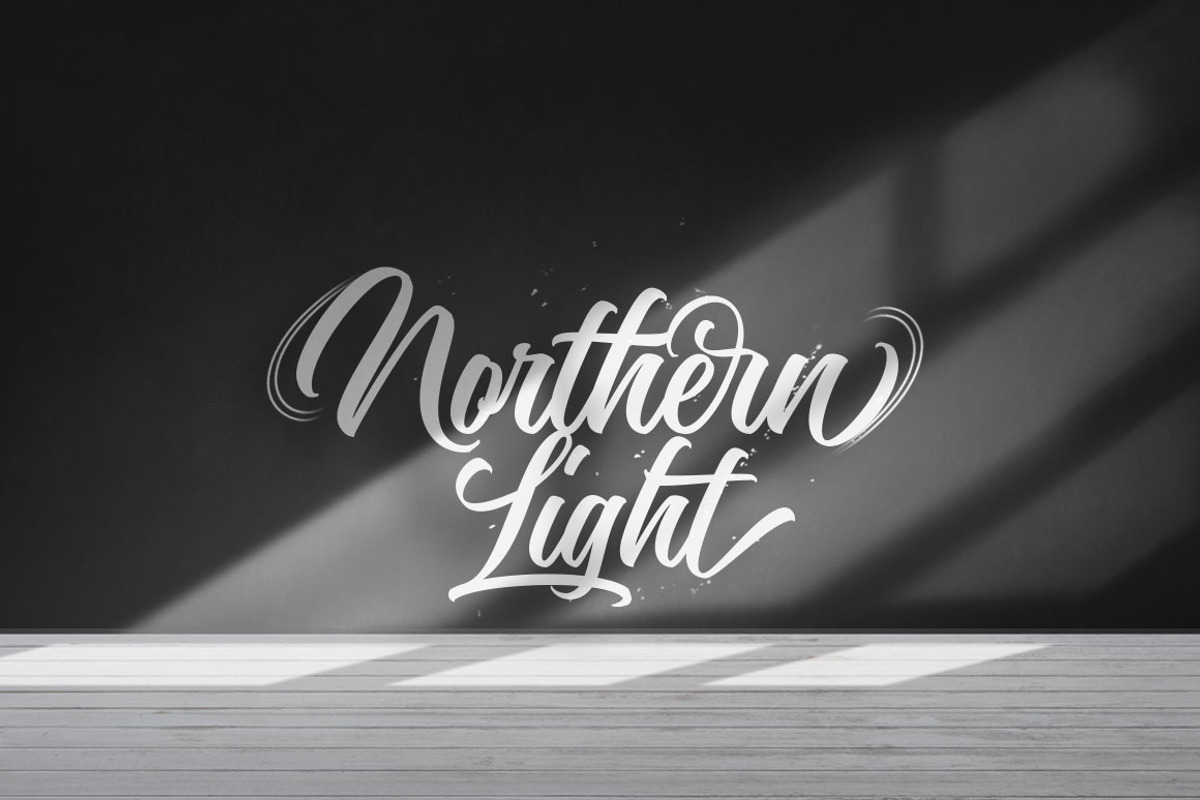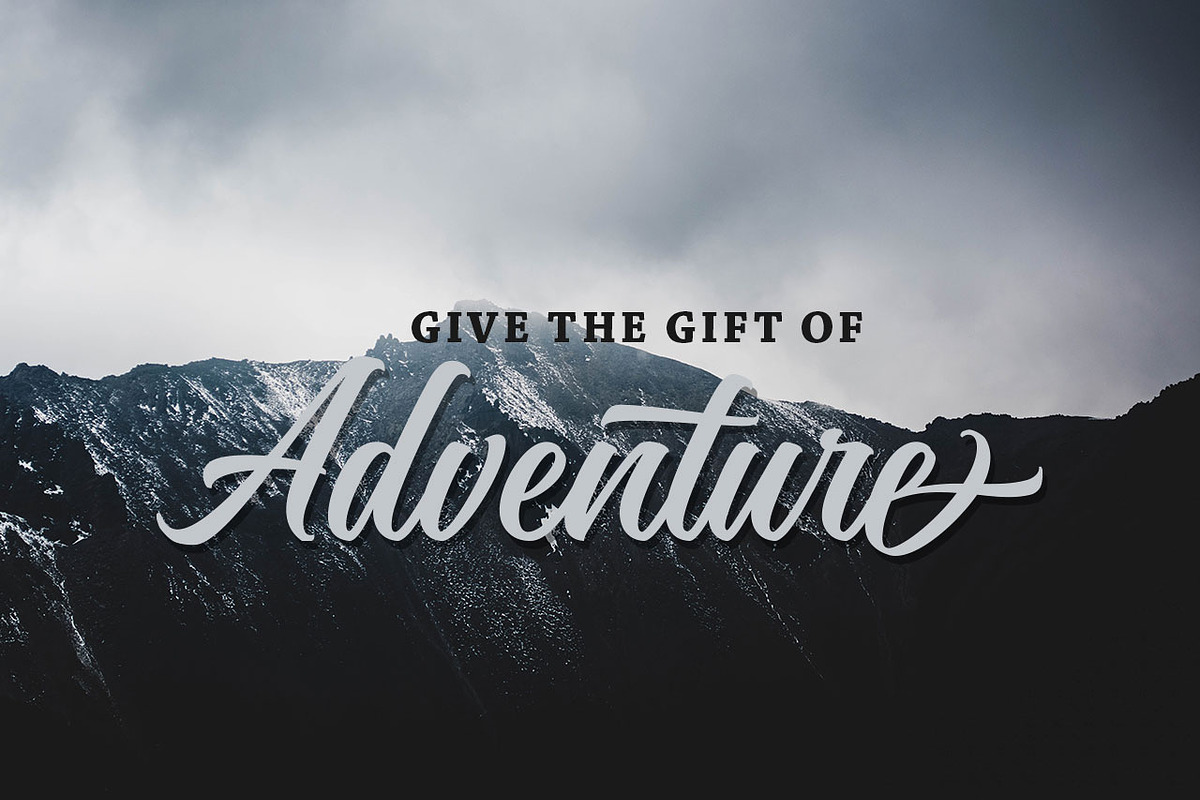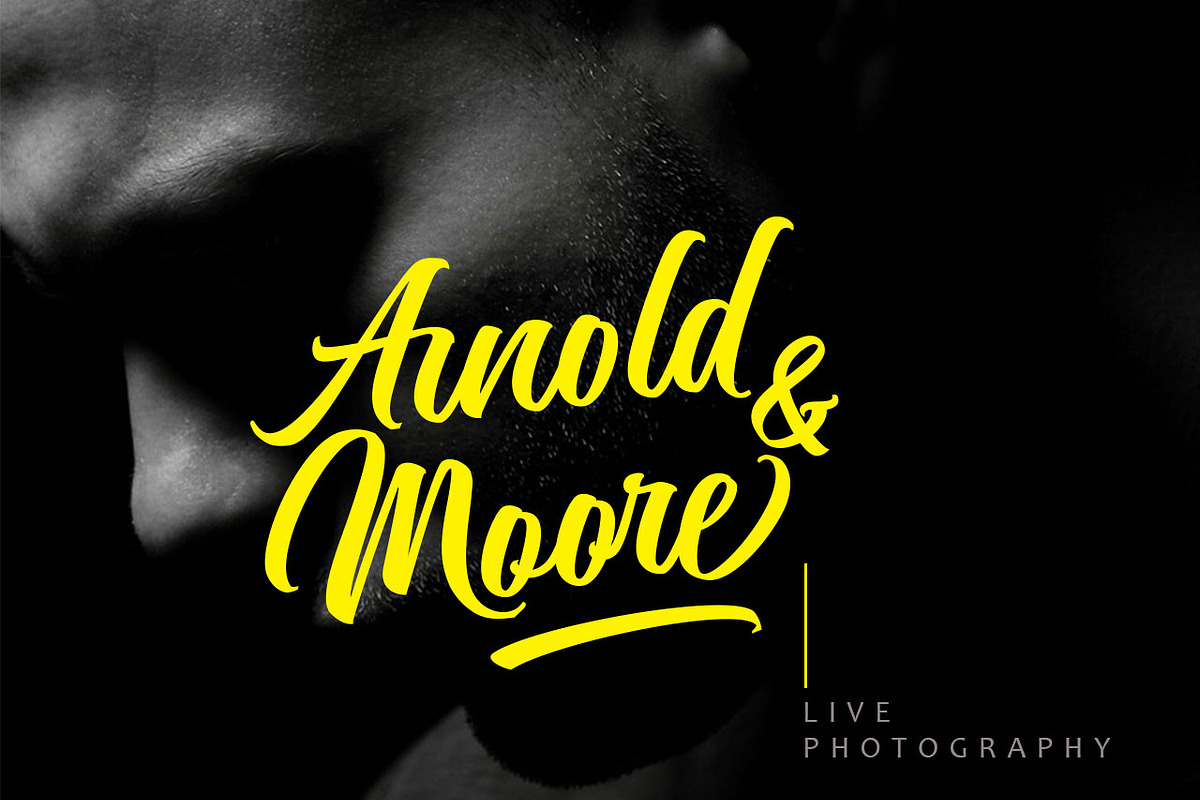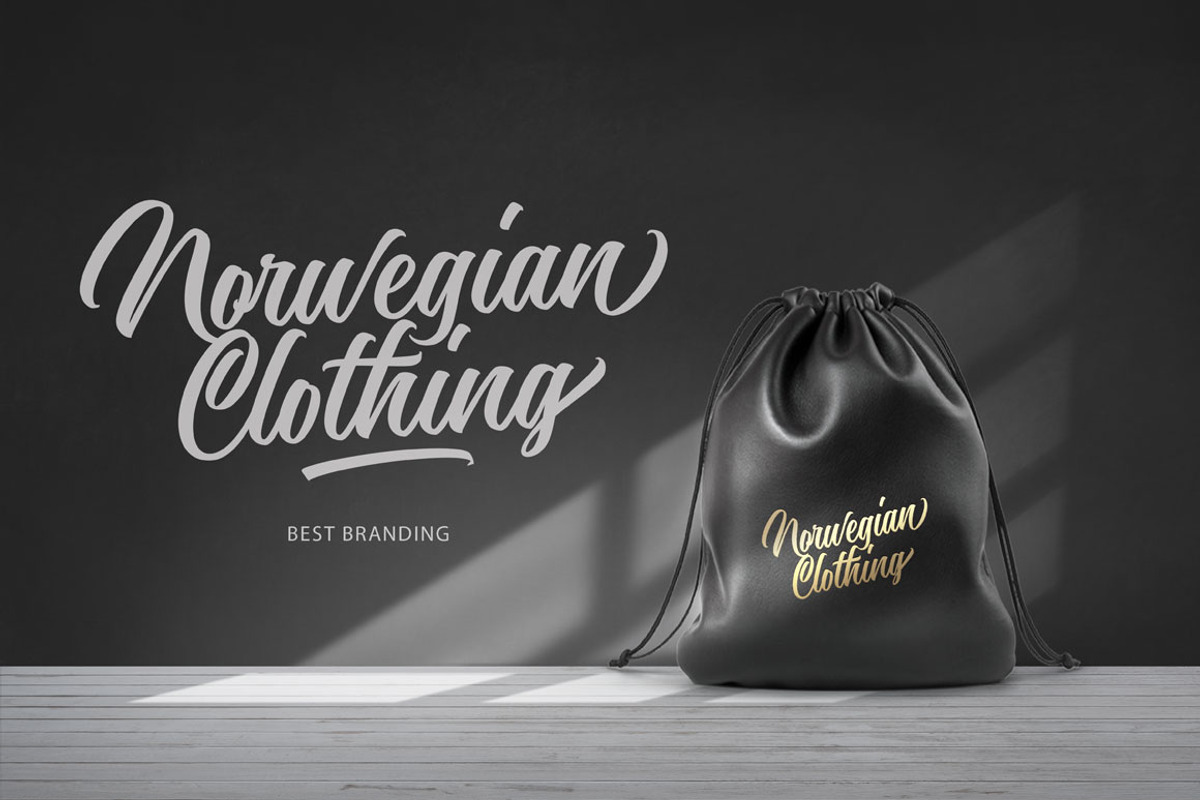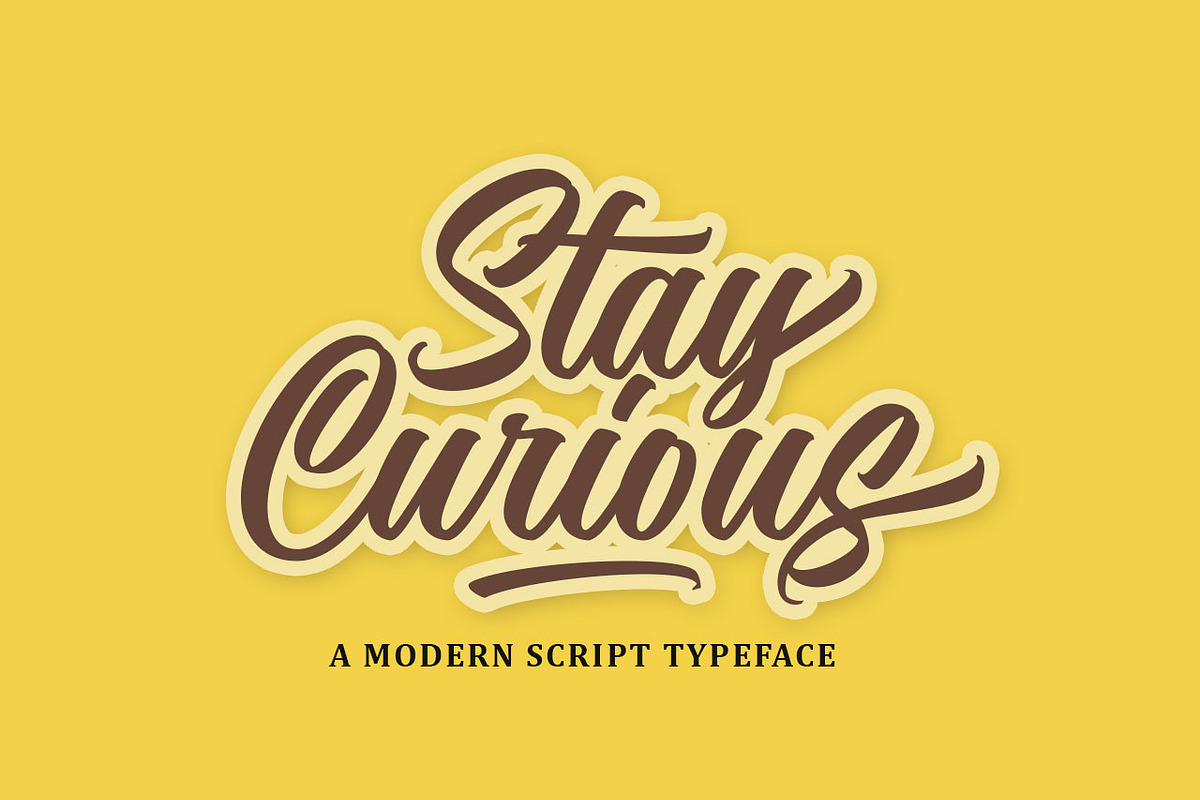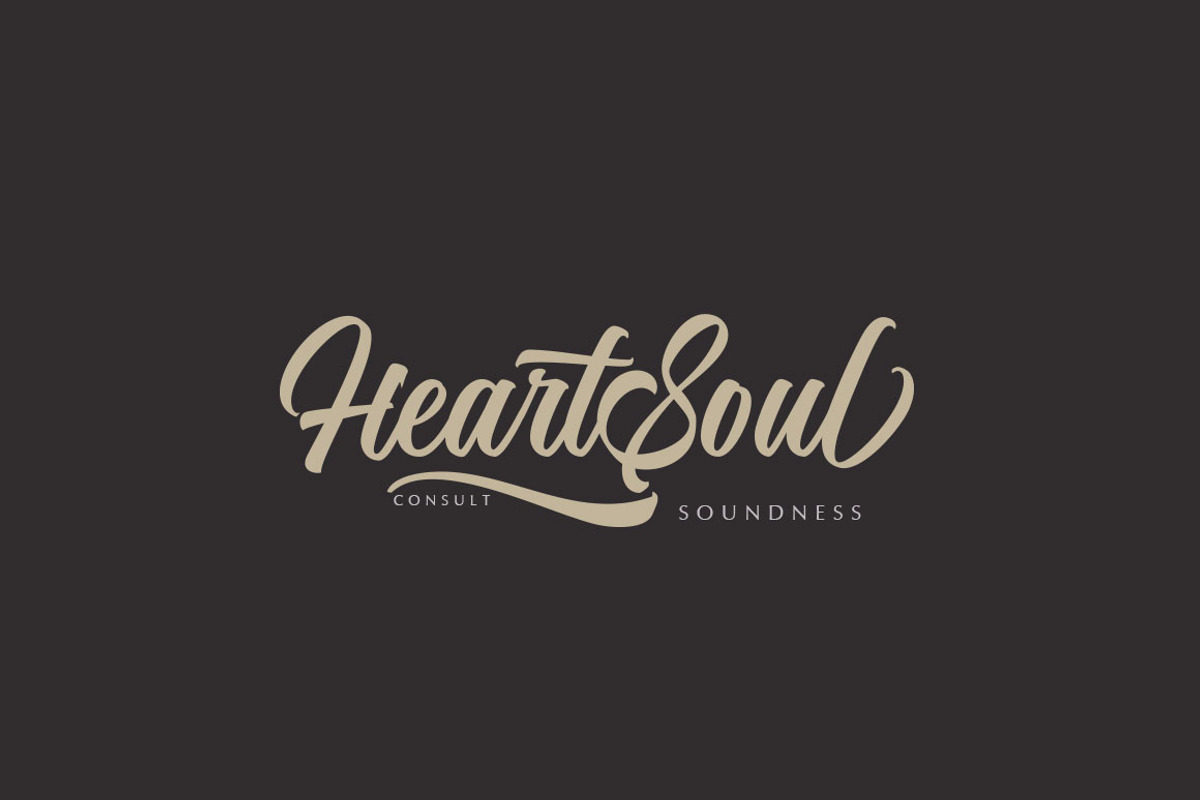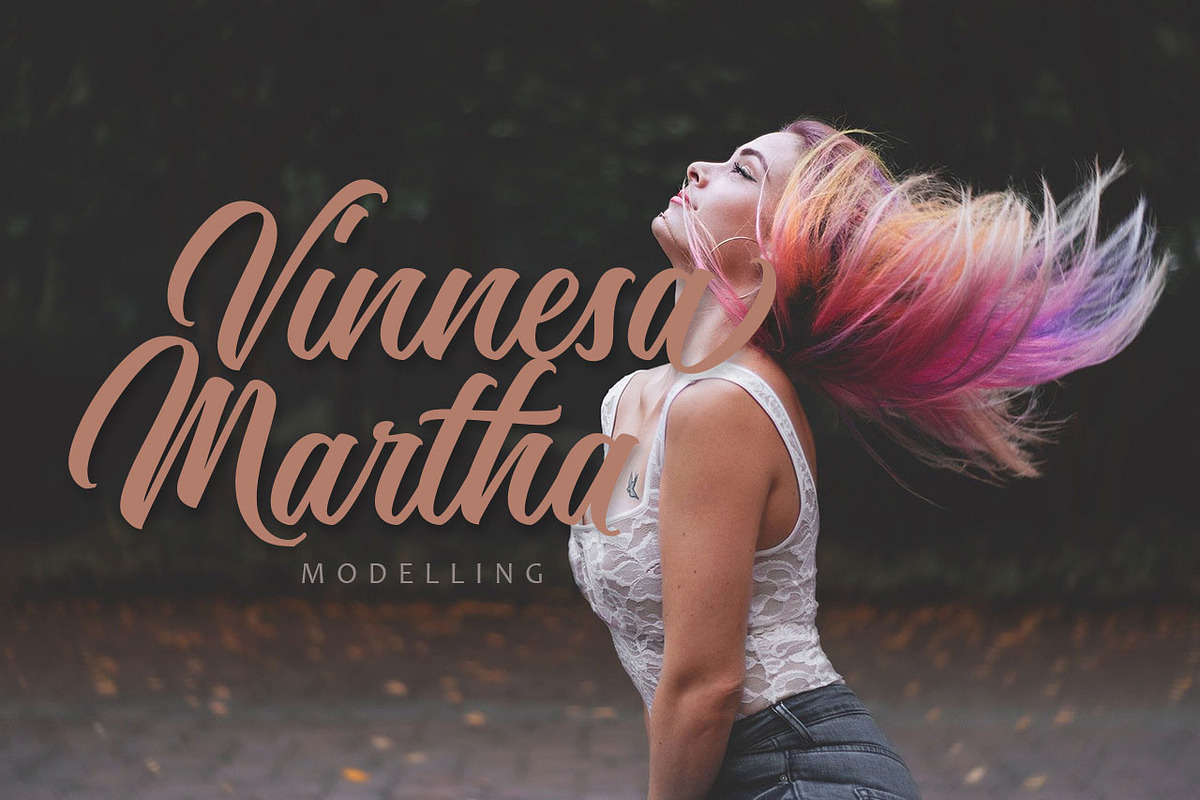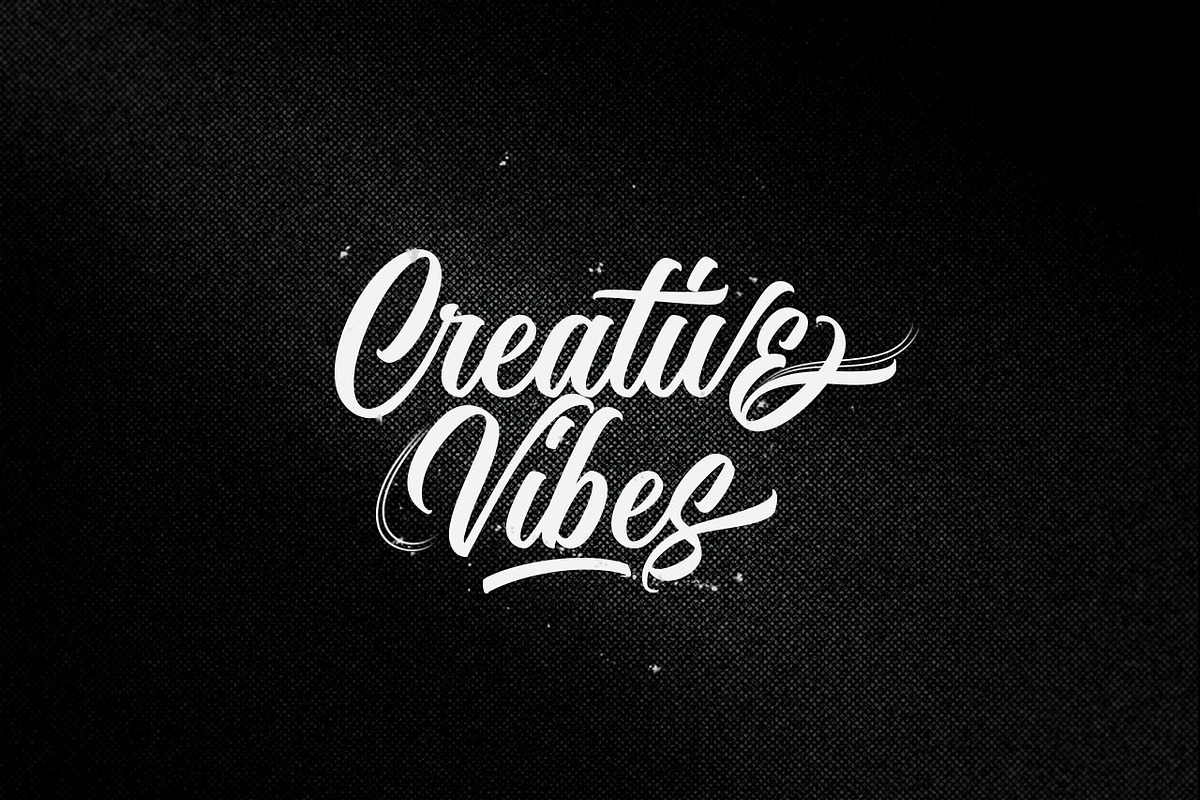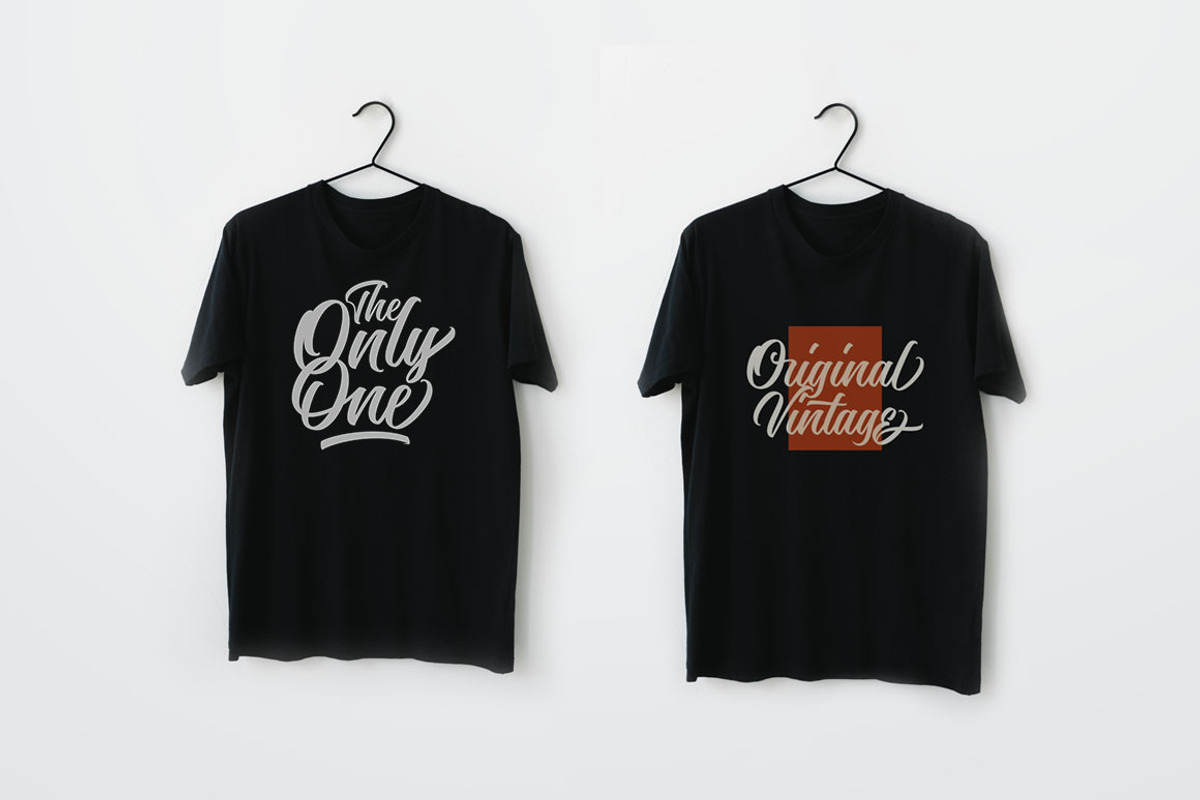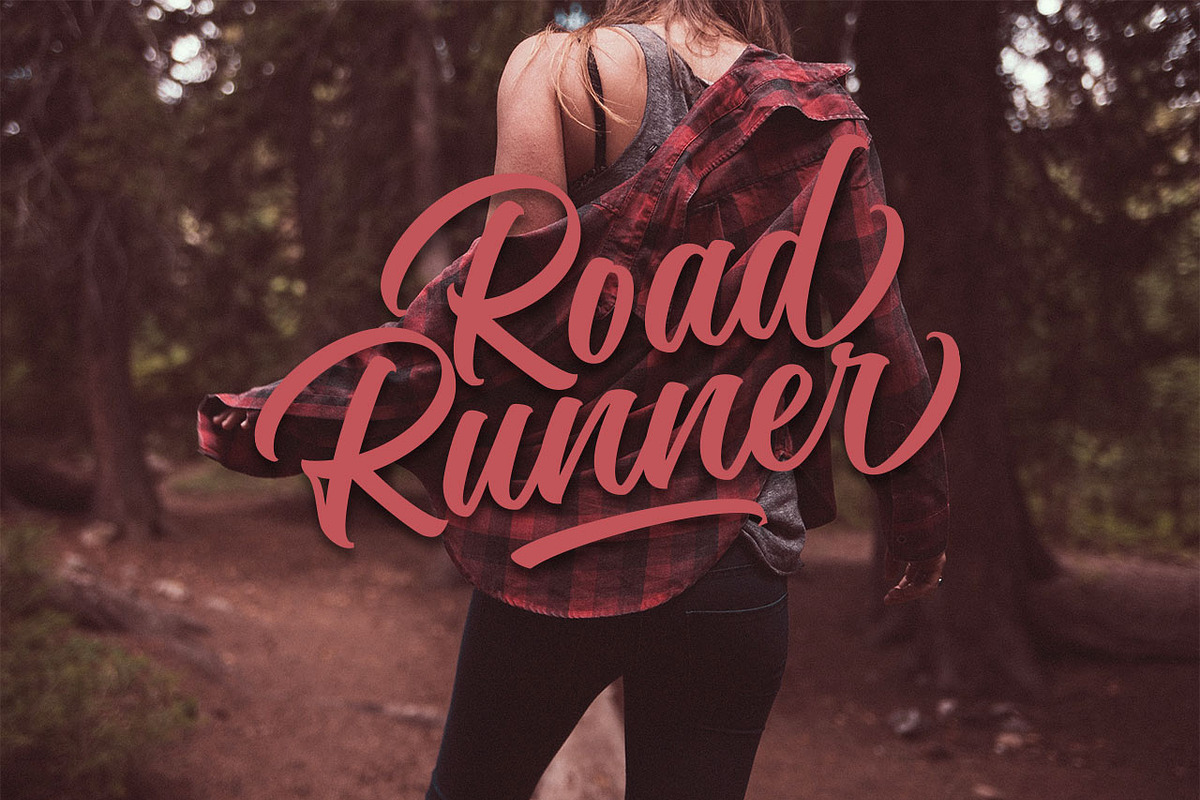
Nostalgic Script
Nostalgic Script perfect for branding projects, a logo, badge, insignia, packaging, headline, poster, t-shirt/apparel, greeting card, and wedding invitation. headers and anything else about your imagination.
Nostalgic Script allows you to create custom dynamic text. you can access by turning on; Stylistic Alternates, Swash, as well as ligatures in Photoshop, Adobe Illustrator, Adobe InDesign or through a panel of glyphs such as Adobe Illustrator, Photoshop CC, Let's switch from the reguler character into character alternative to get the text with the layout of your dreams.
Nostalgic Script also includes glyphs, punctuation, numbers, and multilingual.
Features Basic Latin A-Z and a-z Numbers Symbols